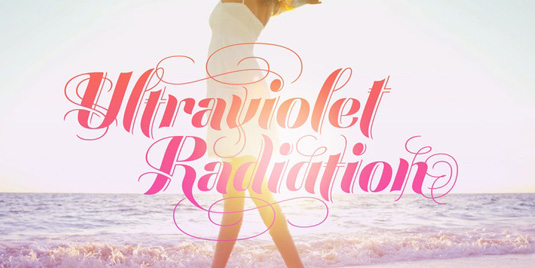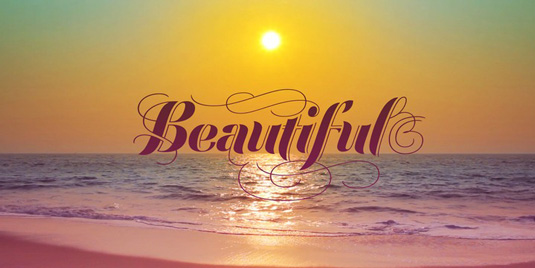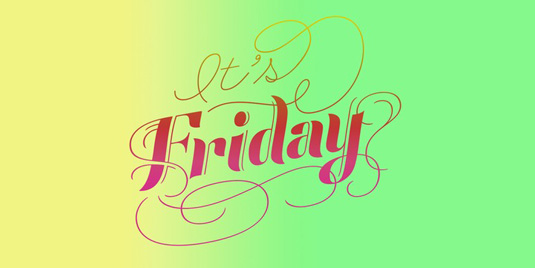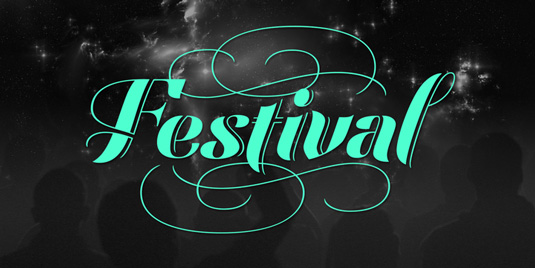
Font of the day: Festival Script
Every day we showcase the best fonts on the web. Today it's Festival Script by Angel Koziupa and Alejandro Paul.
Festival Script by Angel Koziupa and Alejandro Paul
Festival Script was created by lettering, type and logo designer Angel Koziupa and graphic designer Alejandro Paul. The typeface is described on MyFonts as having "a wide variety of thin, ribbonlike strokes, which add a beautifully ornamental feel, evoking Argentine 'filete' motifs. Almost every letterform includes multiple alternates, providing design possibilities from minimal to exuberant."